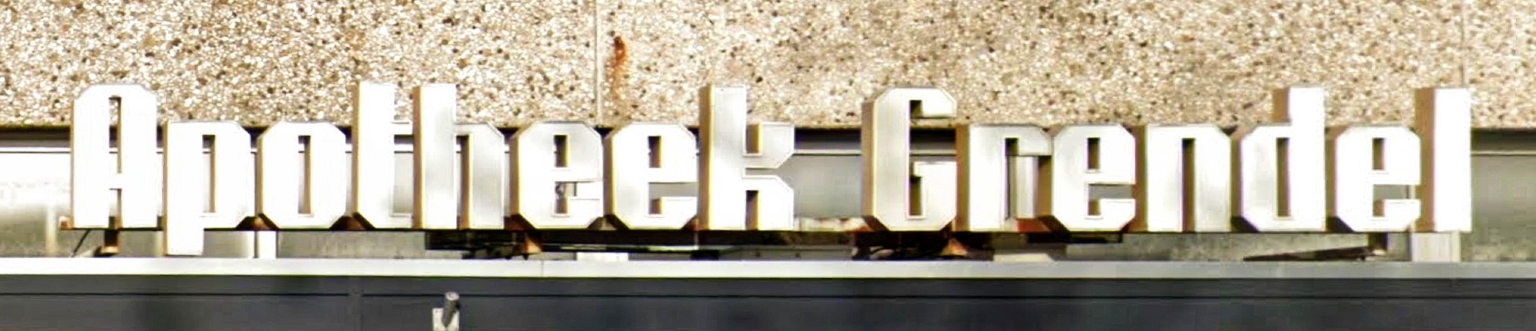
Grendex
Grendex is a modular display typeface designed by Ramiro Espinoza and inspired by the three-dimensional lettering that once identified the former Grendel Apotheek at Dunantsingel 27 in Gouda, the Netherlands. The original sign was likely designed by, or strongly influenced by, Dutch designer Jurriaan Schrofer, whose experimental and systematic approach to modular lettering had a significant impact on postwar graphic design.
Espinoza examined the structure, proportions, and spatial logic of the original letters and translated them into a contemporary digital typeface. In the process, irregularities were refined and the character set expanded, while preserving the modular framework and sculptural quality of the source. Rather than recreating the signage literally, Grendex extracts its underlying system and adapts it into a versatile typographic tool.
With its solid geometry and pronounced three-dimensional character, Grendex is well suited for posters, branding, computer games, packaging, signage, editorial design, websites, and cultural projects that benefit from a clear, constructed visual language. It bridges mid-twentieth-century lettering experiments and contemporary typographic practice, offering a font rooted in architectural signage and modernist design principles.